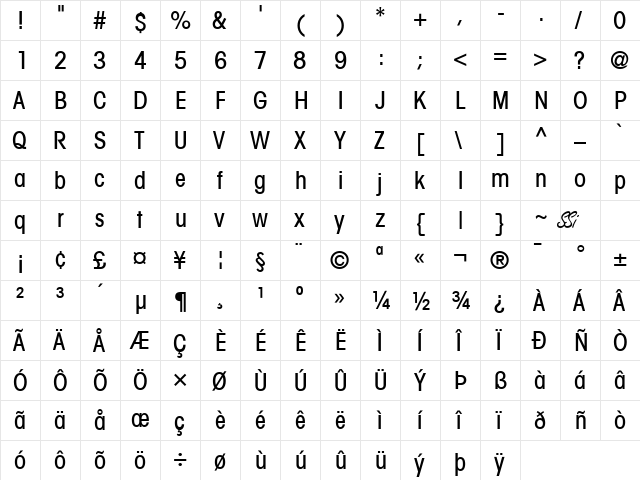
Trendex Light Condensed SSi Medium Condensed Font Preview
Design Context for Trendex Light Condensed SSi Typeface
Trendex Light Condensed SSi is a composed and adaptable typeface that performs quietly and consistently across a wide range of design contexts. Its slender proportions lend an understated elegance to any composition. The condensed width makes it efficient for tight spaces without sacrificing legibility.